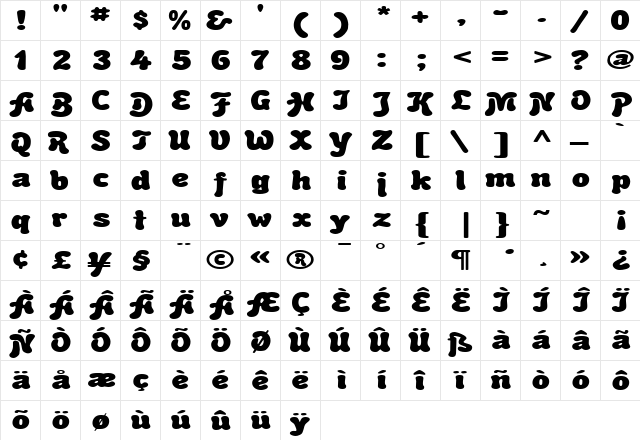
BubbleSoftExtended Regular
Design Context for BubbleSoftExtended Typeface
BubbleSoftExtended trades formality for fun, with bouncy, characterful letterforms that bring warmth and energy to any project.
Font Pairing: Pairs well with a rounded or humanist sans for body copy, maintaining the friendly tone without relying on BubbleSoftExtended to carry extended reading.
Pro Tip: Avoid using BubbleSoftExtended for long passages of text — it works best for headlines, labels, and short calls to action.